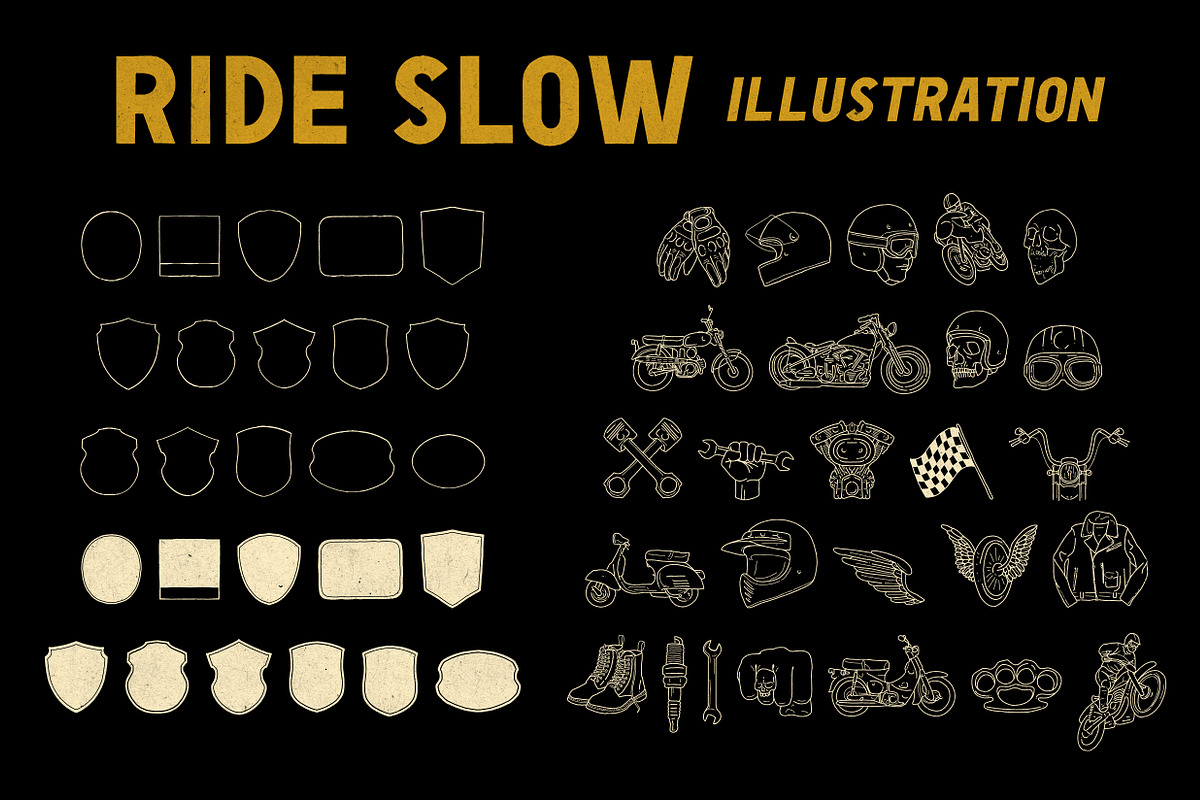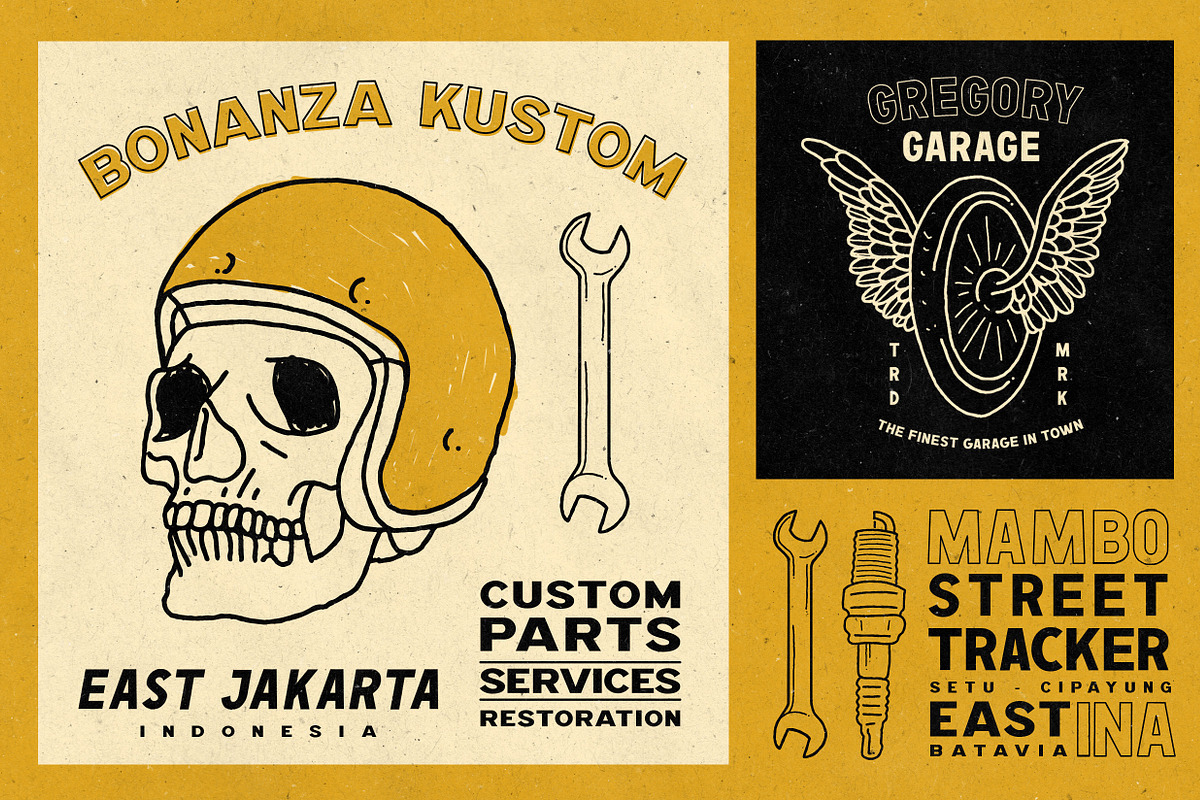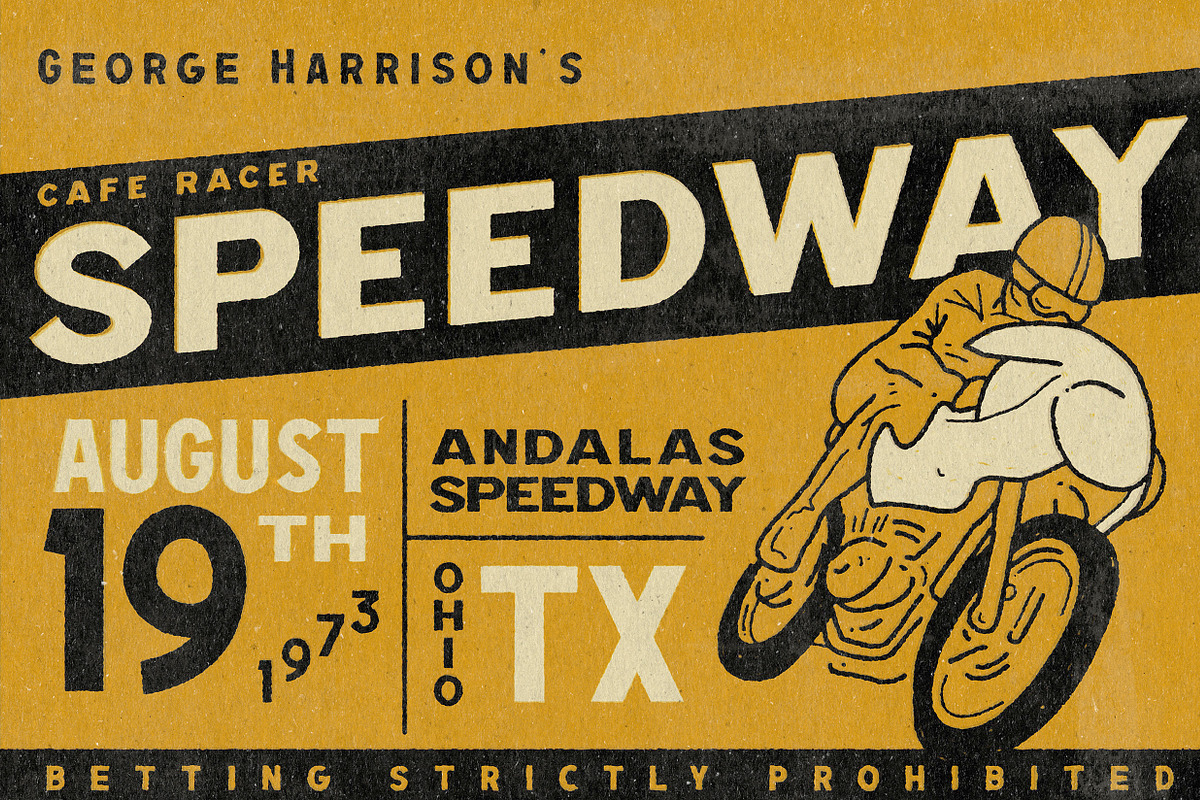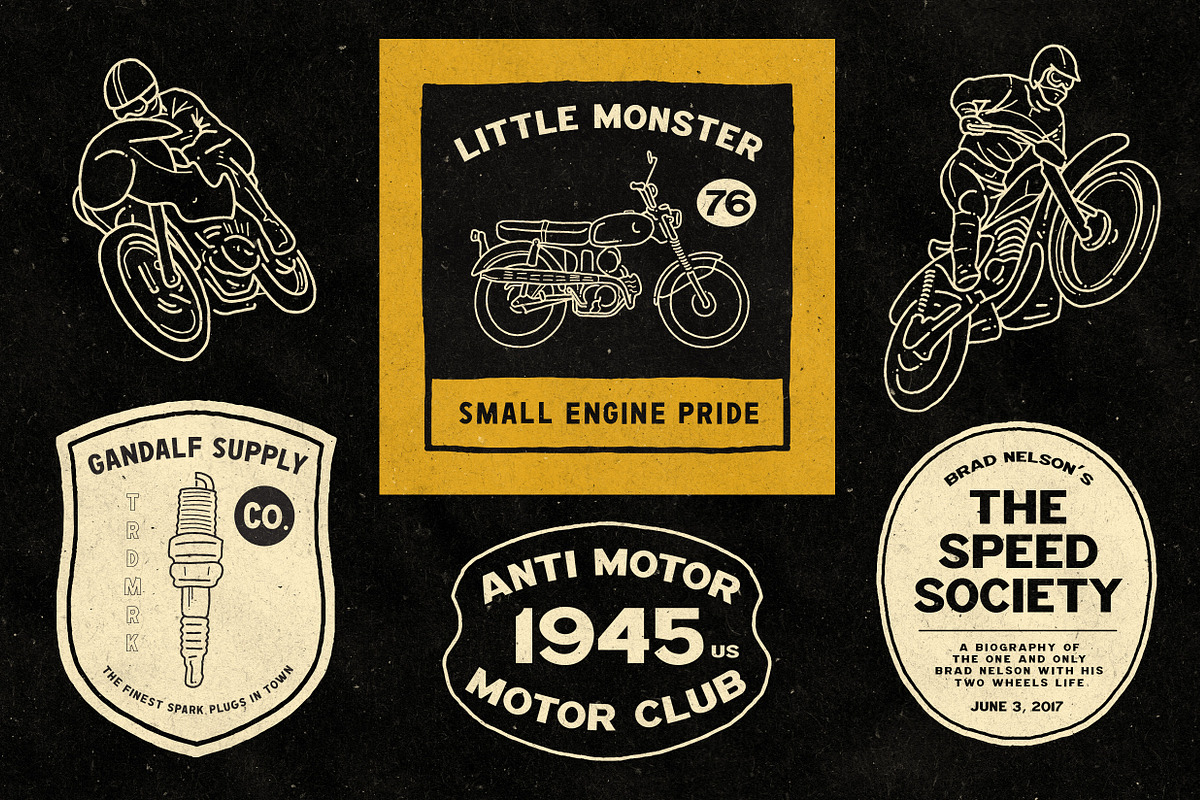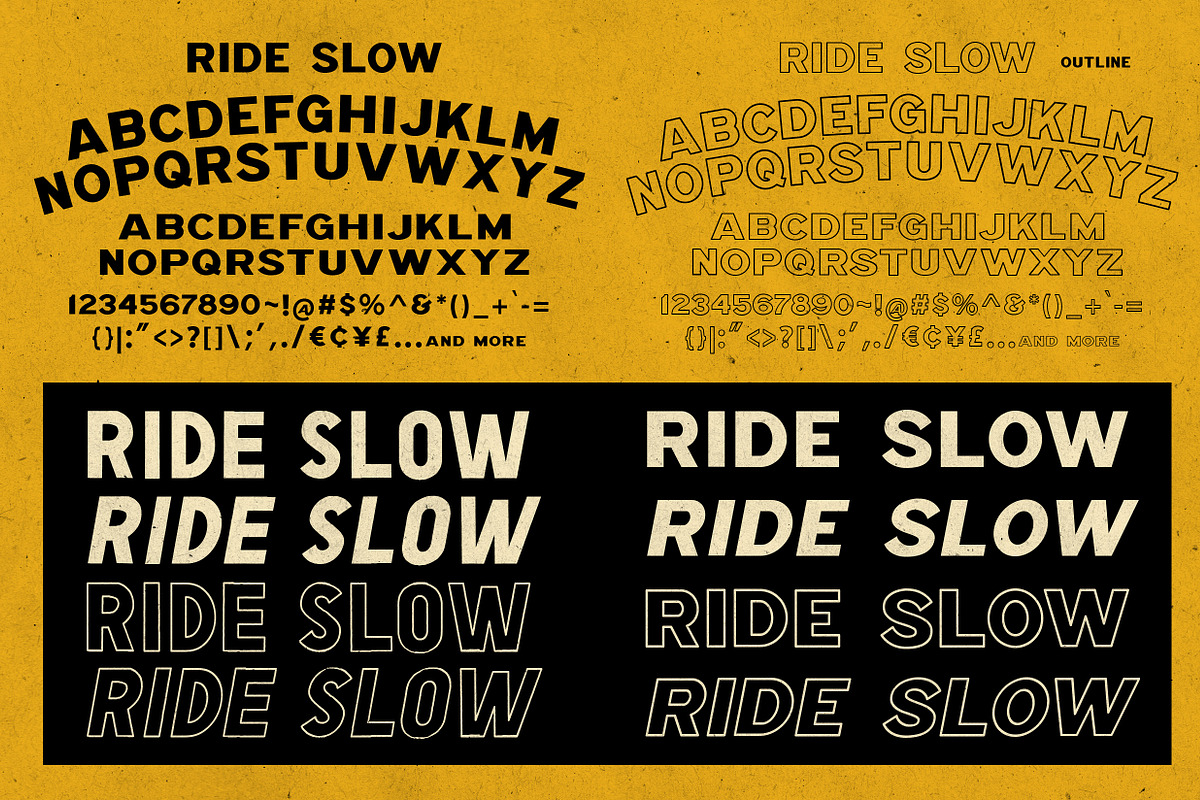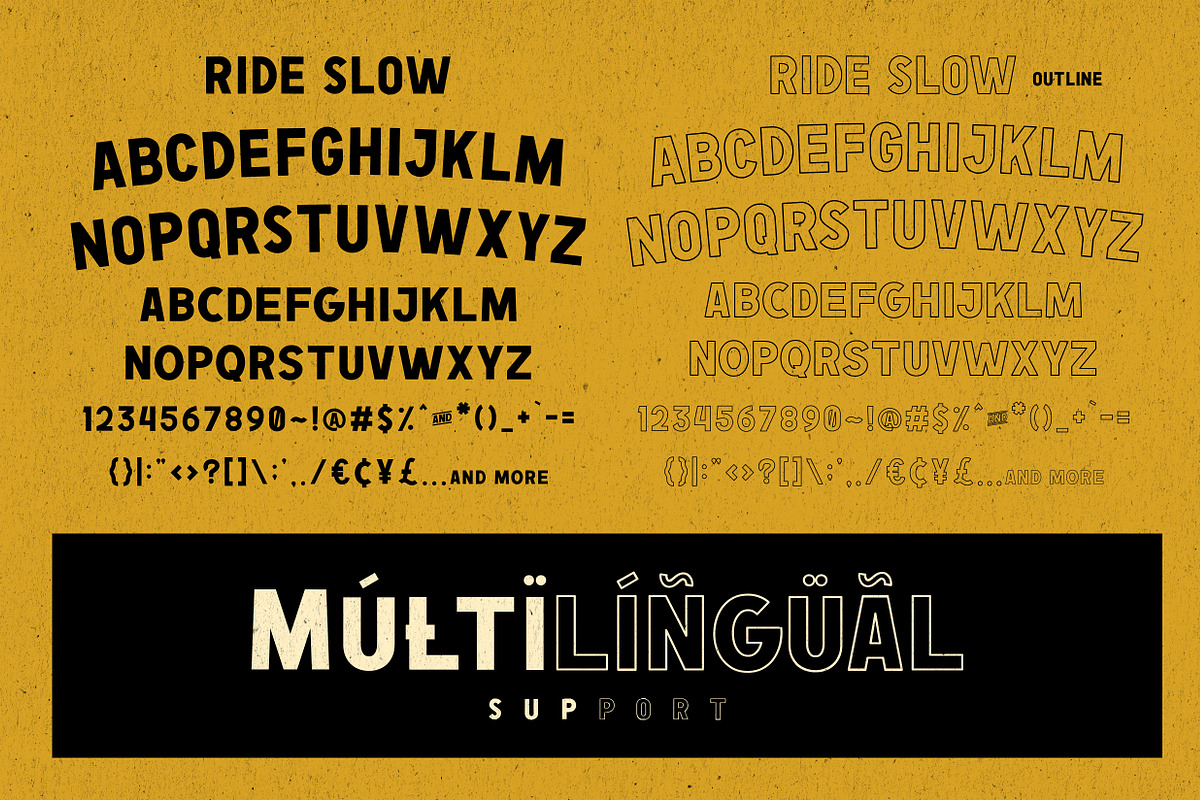
Ride Slow - Motorcycle Font Bundle
Ride Slow fonts are inspired by vintage motorcycle display and advertisement back in 70's and 80's era.And just because we love classic motorcycle that much, so we decided to give it a hit straight to the theme. It contains 8 different style plus one dingbats illustration. Perfectly fit for a poster design, logo, vintage and retro branding, motorcycle fashion, signs, labels, just give it a full throttle and get ready to brrrraaappppppp!
Ride Slow Outline Italic
Ride Slow Short Outline
Ride Slow Short Italic
Ride Slow Short Outline Italic
Ride Slow Illustration